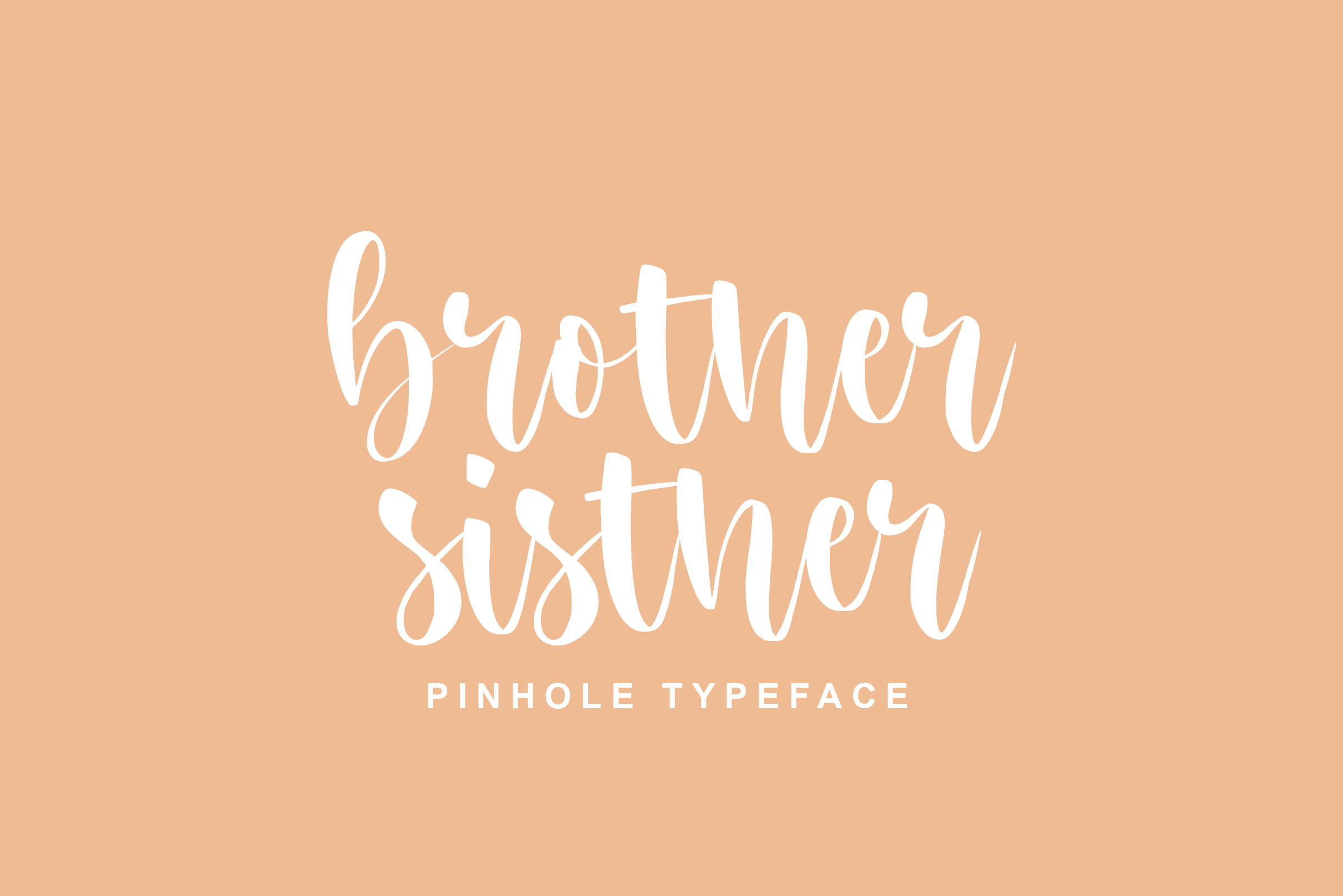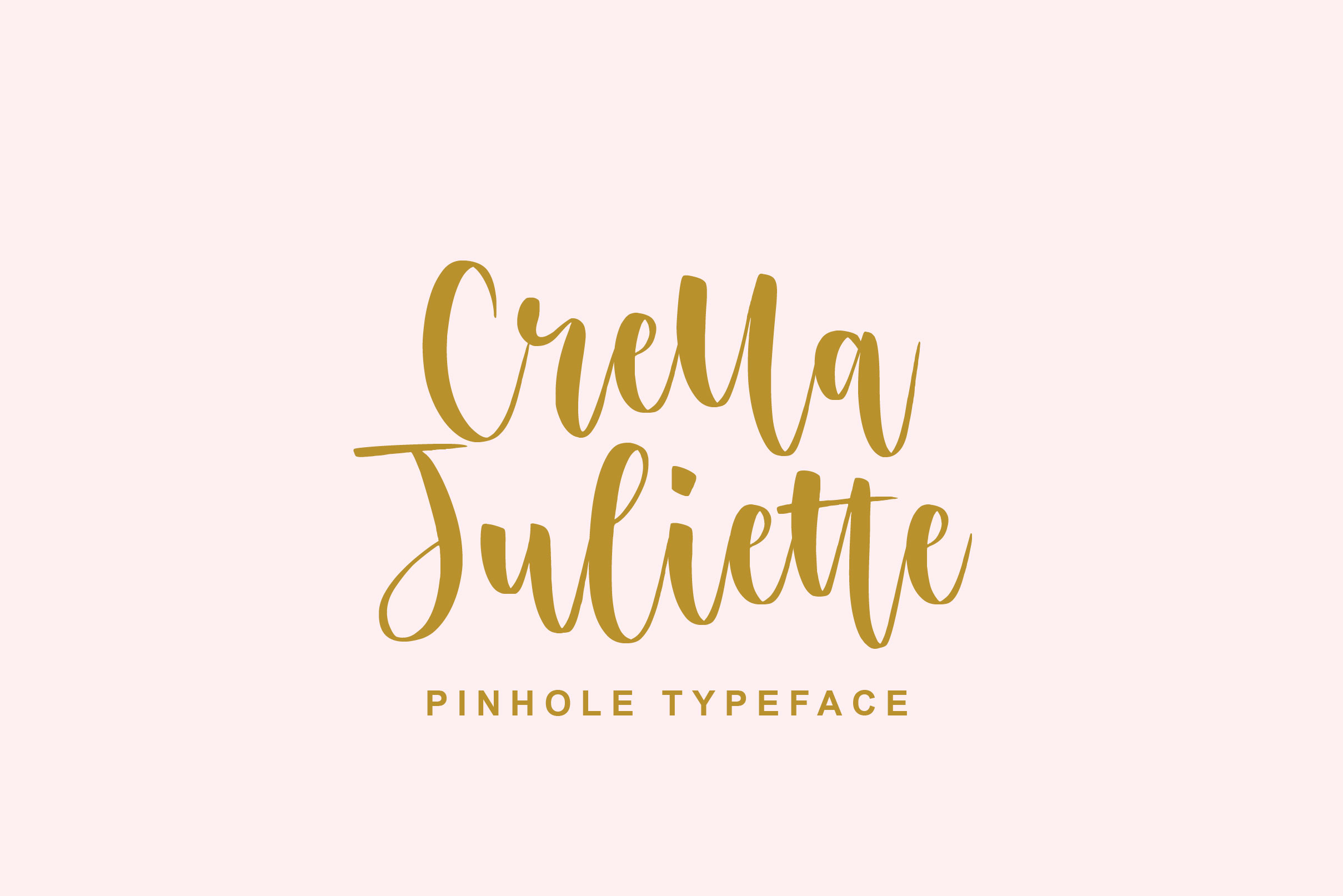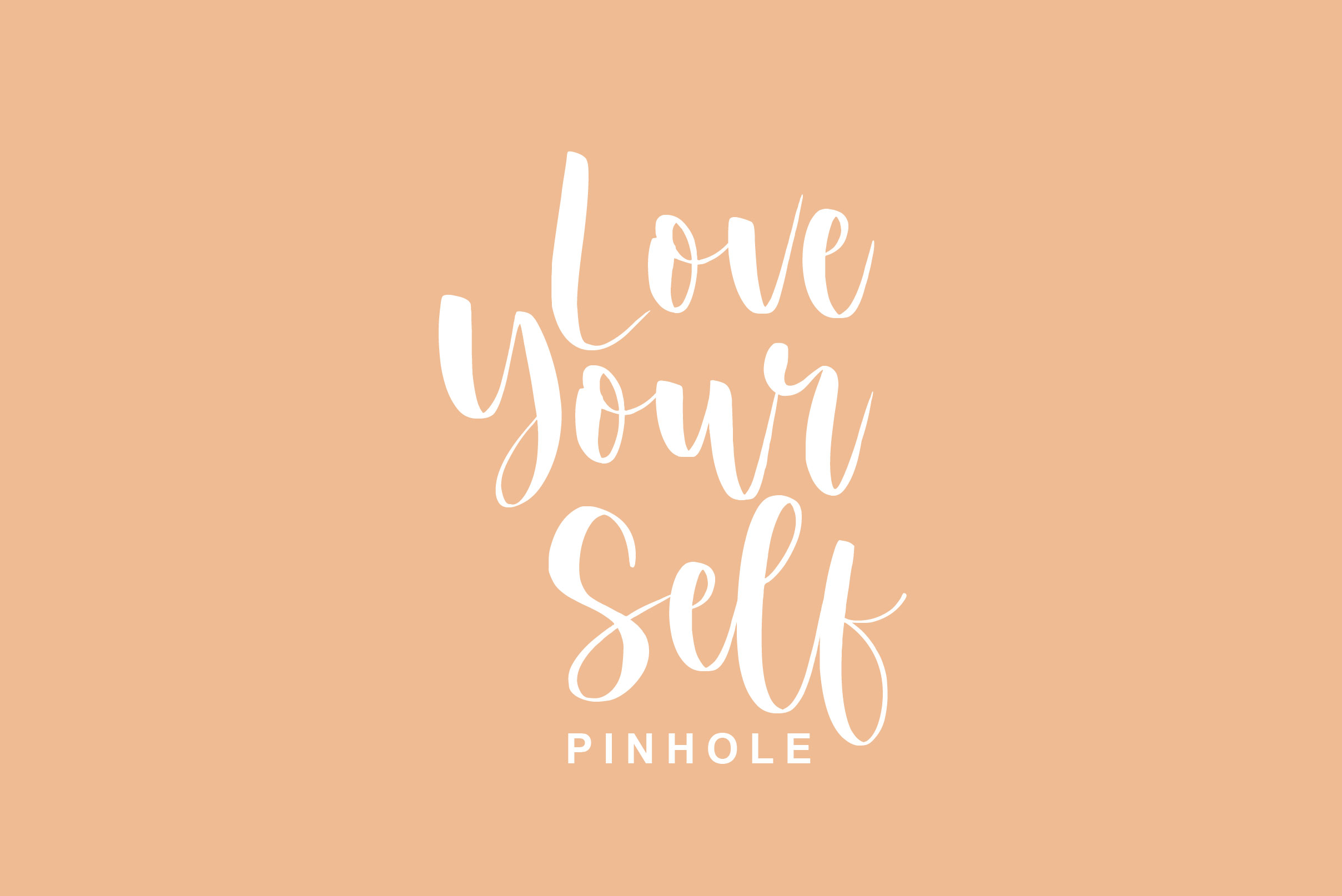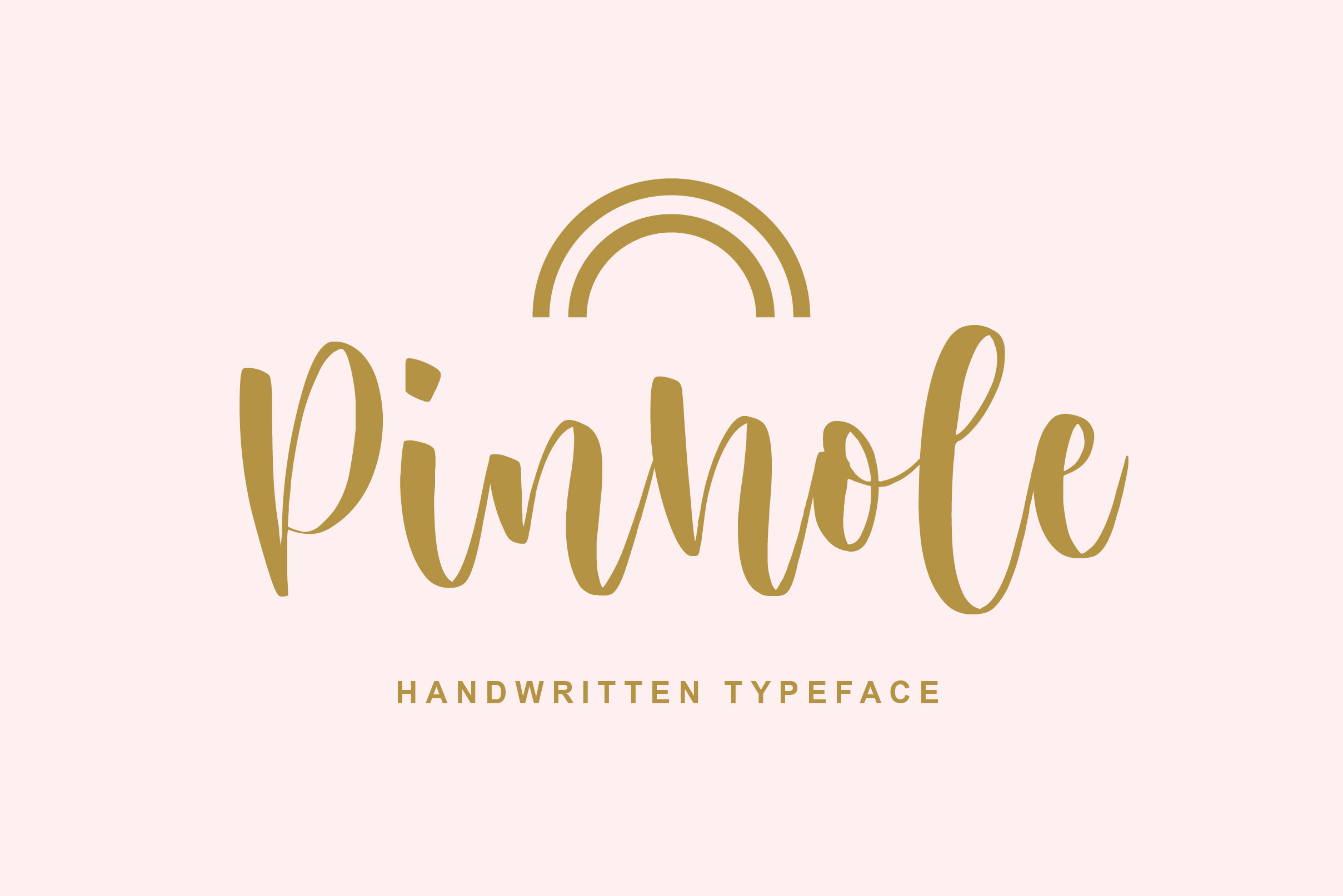
Pinhole Font
Pinhole Script FontPinhole Font preview image 2Pinhole Font preview image 3Pinhole Font preview image 4
Pinhole Script Font is a modern paint brush calligraphy font with sophisticated flows. This font is perfect for logos, wedding stationery, cards, gift designs, photography, watermark, product packaging and quotes.